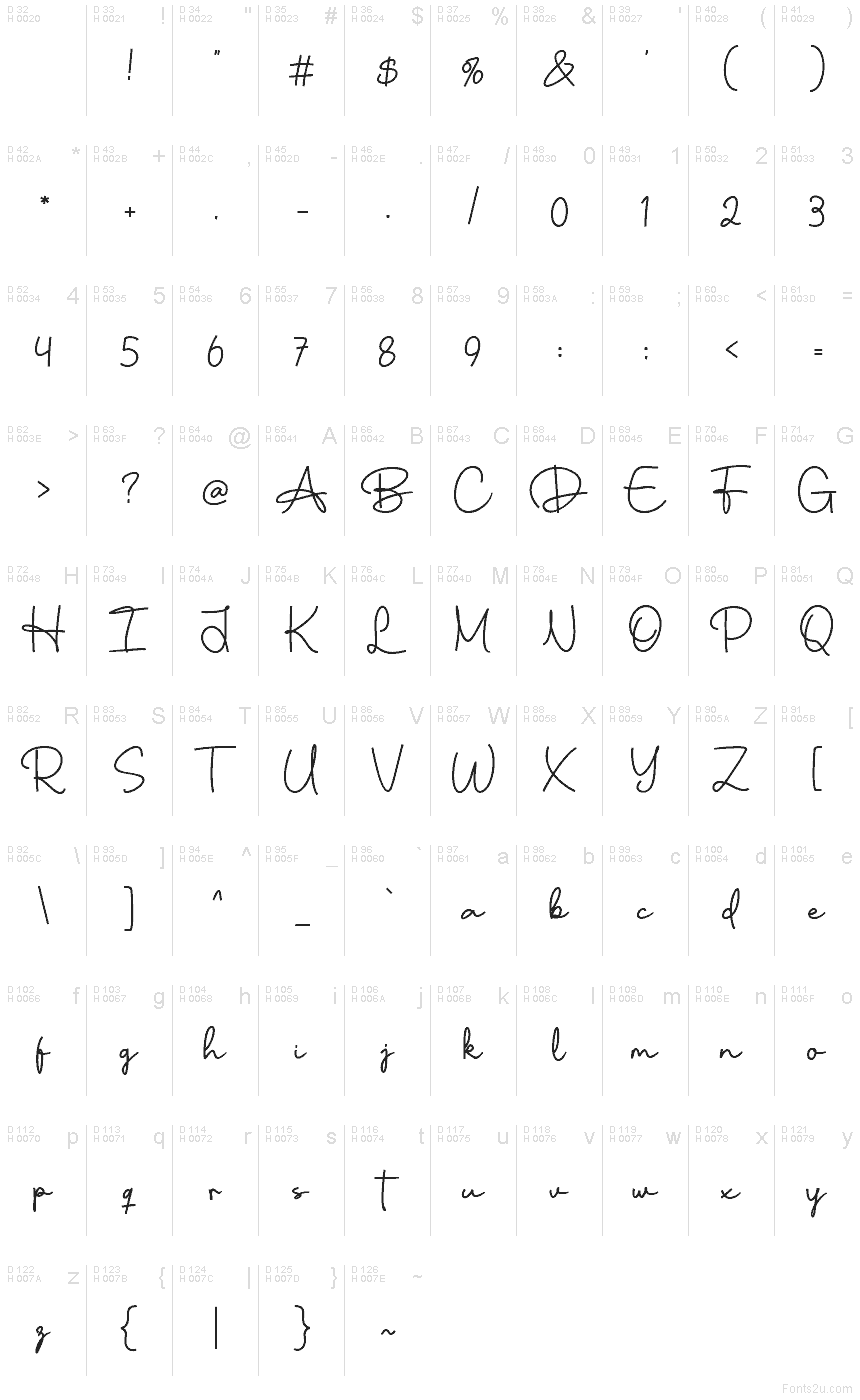
Days of Charity
Days of Charity font by Khurasan is a free light handwritten signature font. It solves the common “pretty but hard to read” script problem with smooth monoline strokes, open counters, and a calm, even rhythm. The loops feel airy without becoming wispy, and the gentle baseline bounce keeps it friendly while staying tidy—like a neat note written with a fine pen.
This free font shines on brand marks, wedding suites, product packaging, Instagram quotes, gift tags, and beauty labels. Using Days of Charity brings warmth and clarity to short headlines and names, especially at medium-to-large sizes. Pair it with a clean, low-contrast sans for body text, and give it a touch of tracking to let the graceful forms breathe.